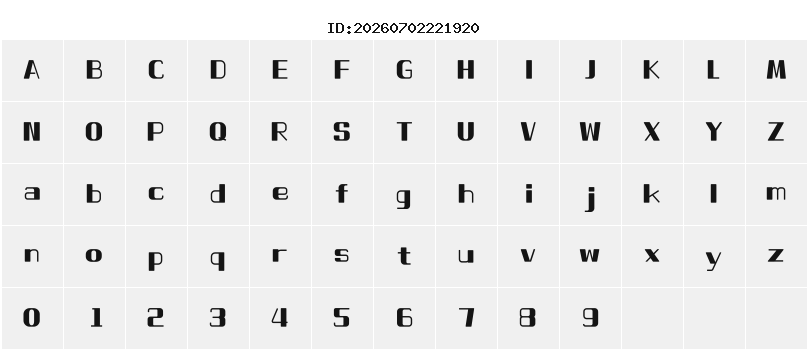
229-上首时光体 Preview
• Font Name: 229-上首时光体
• Font ID: 229-SSShiGuangTi:Version 4.00
• Full Font Name: 229-上首时光体
• Version: Version 4.00 March 22, 2023
• PostScript Name: 229-SSShiGuangTi
• Manufacturer: 上首造字
About 229-上首时光体.ttf
229-上首时光体.ttf is a modern, elegant sans-serif font designed for ultimate readability and visual harmony. Perfect for branding, headlines, web design, and print materials.